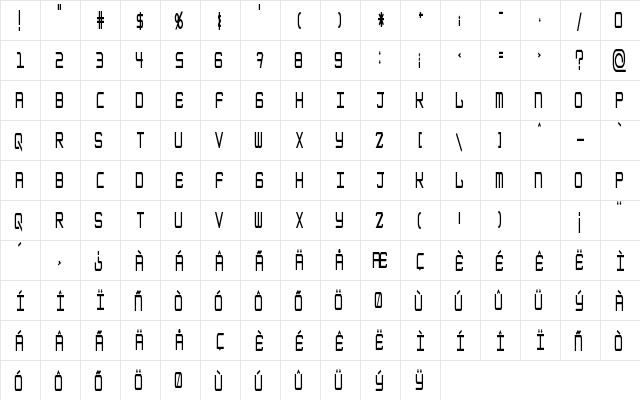
EpicenterBoldSkinny Regular
Design Context for EpicenterBoldSkinny Typeface
EpicenterBoldSkinny is a composed and adaptable typeface that performs quietly and consistently across a wide range of design contexts. Its bold stroke weight gives it real presence on the page.